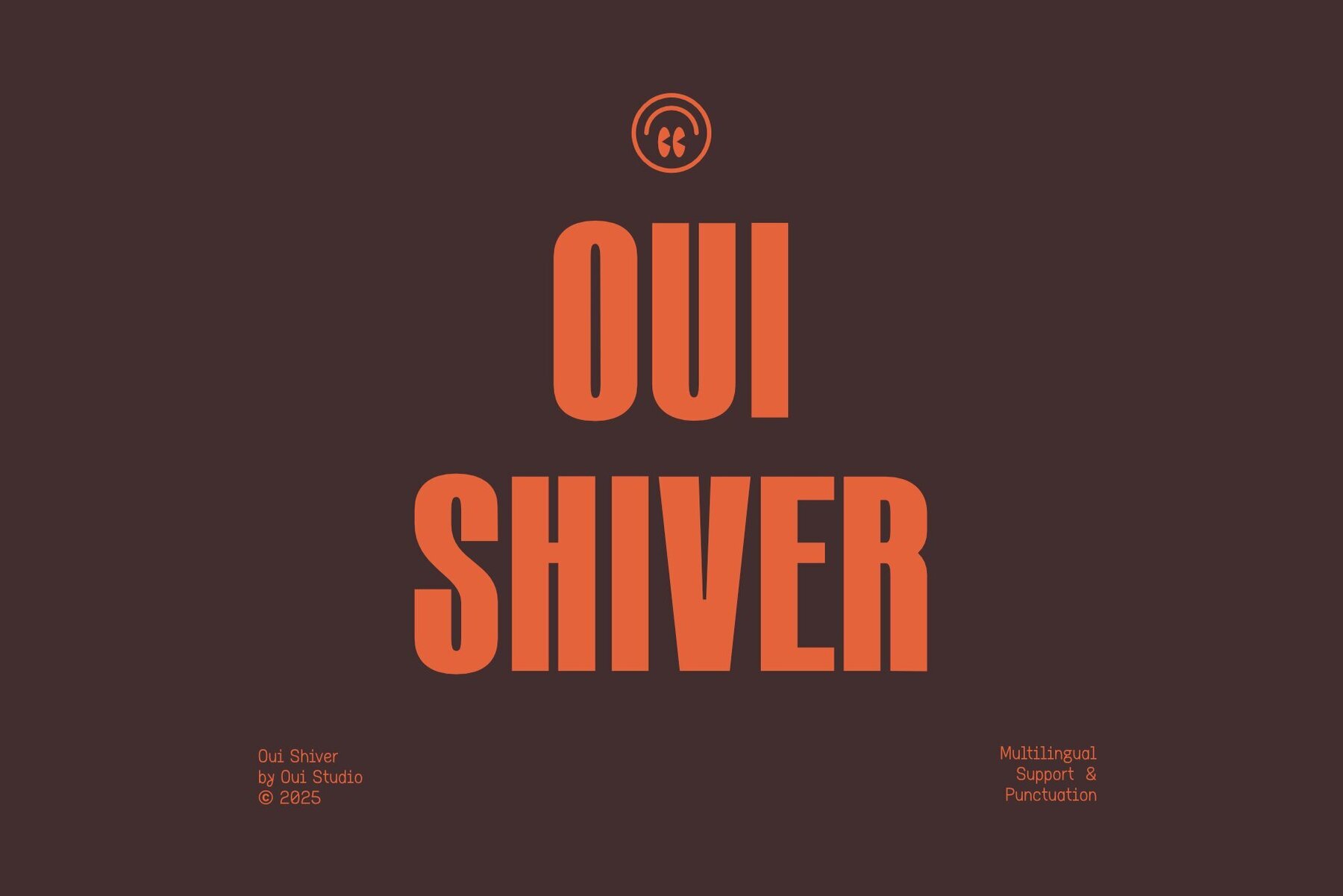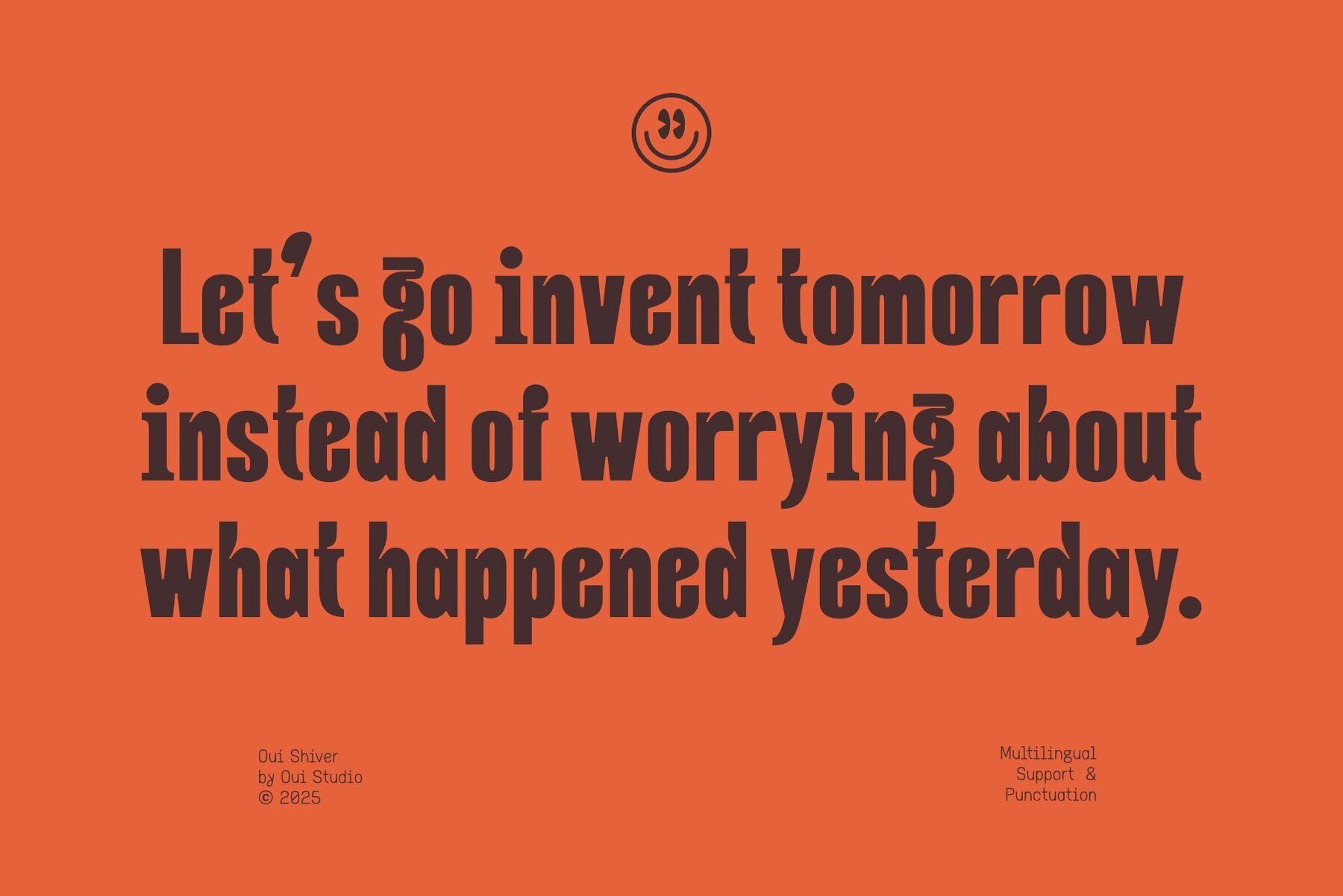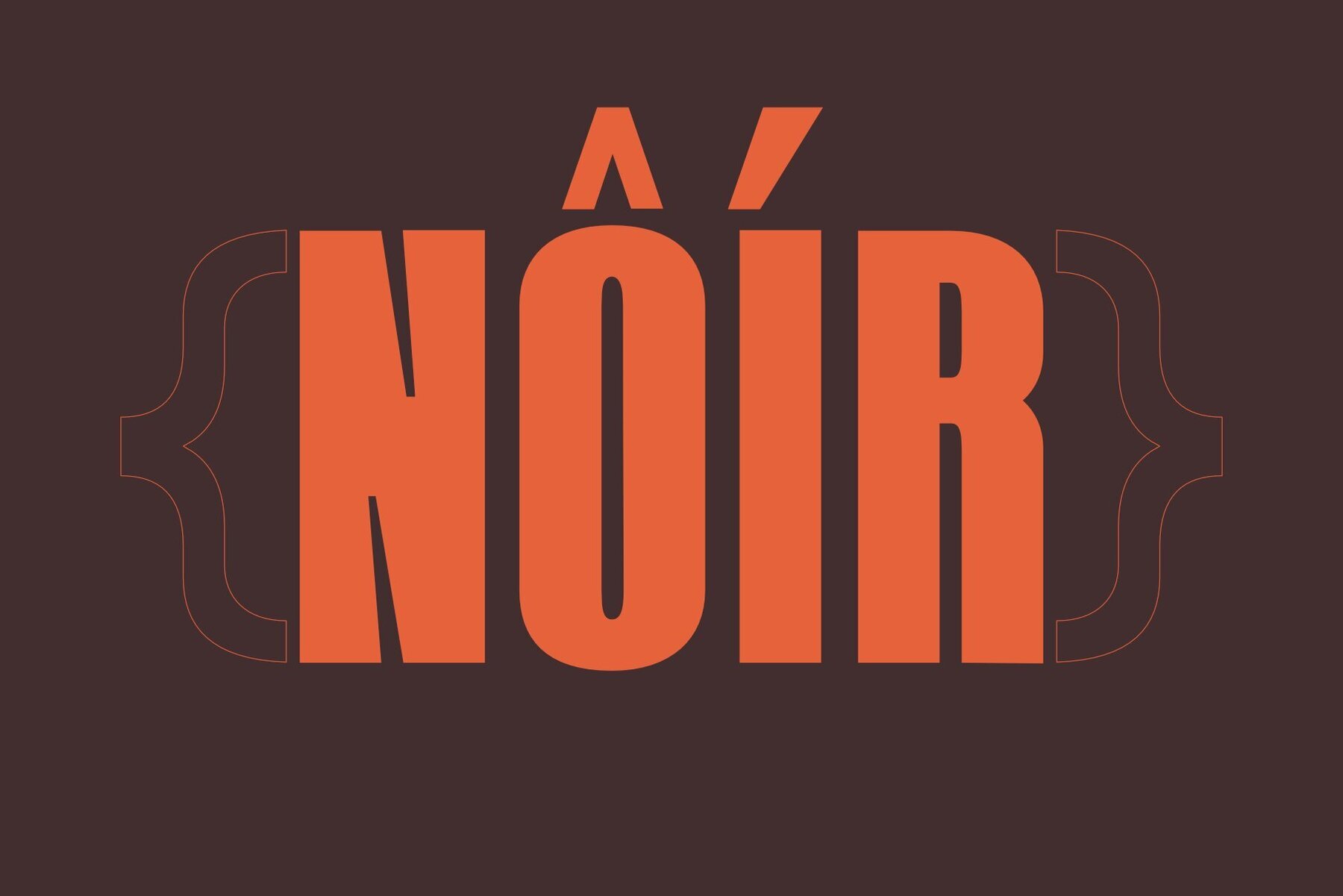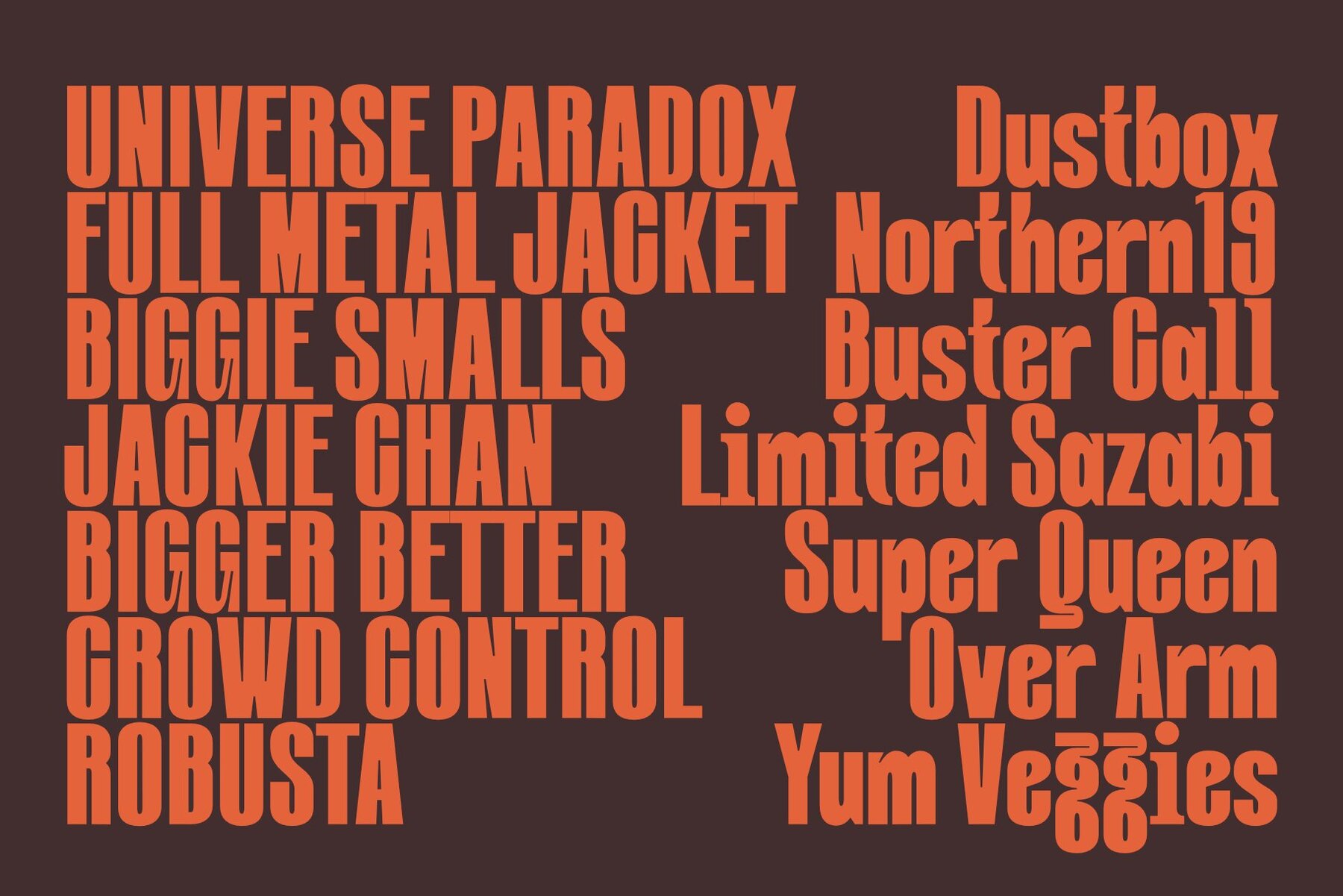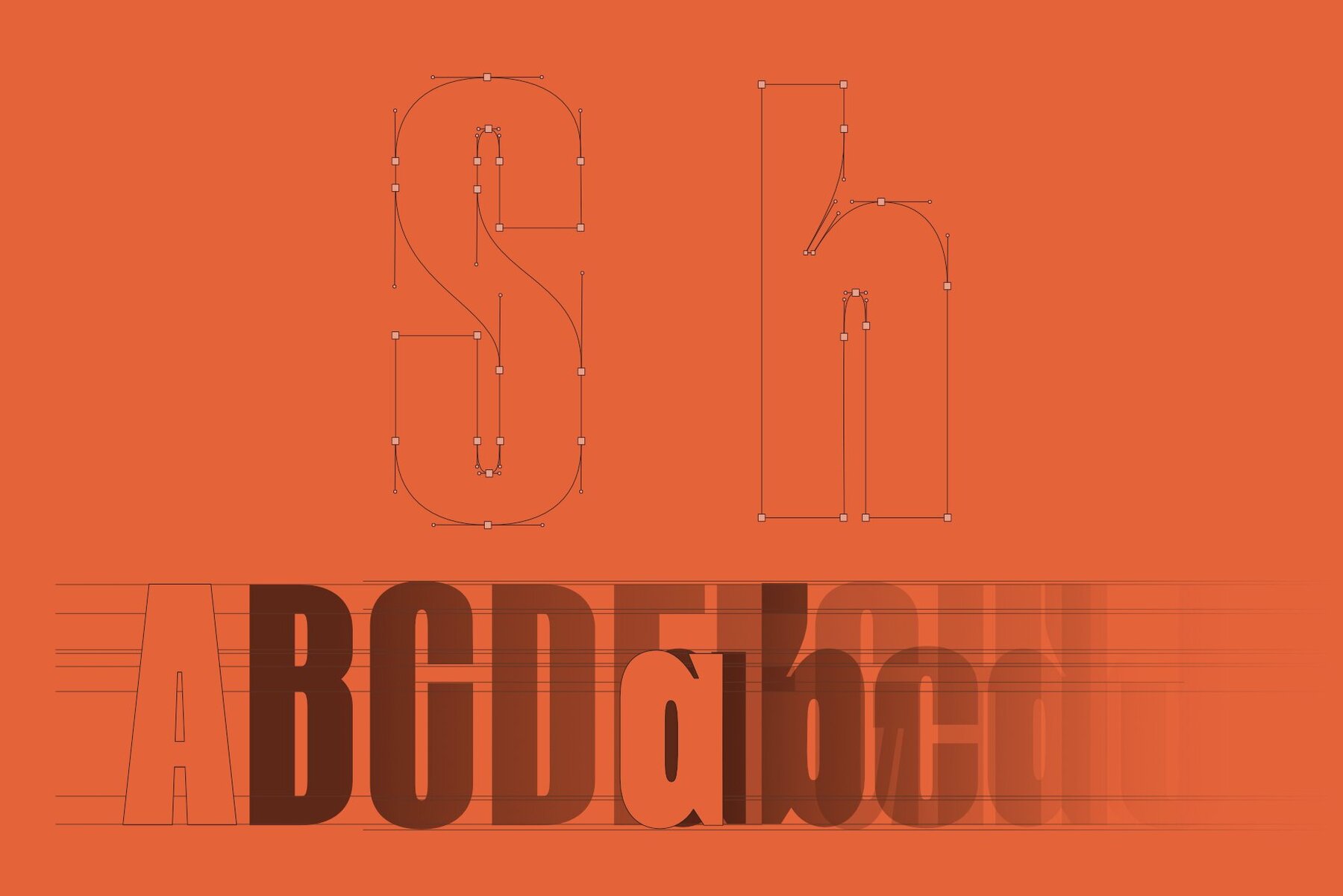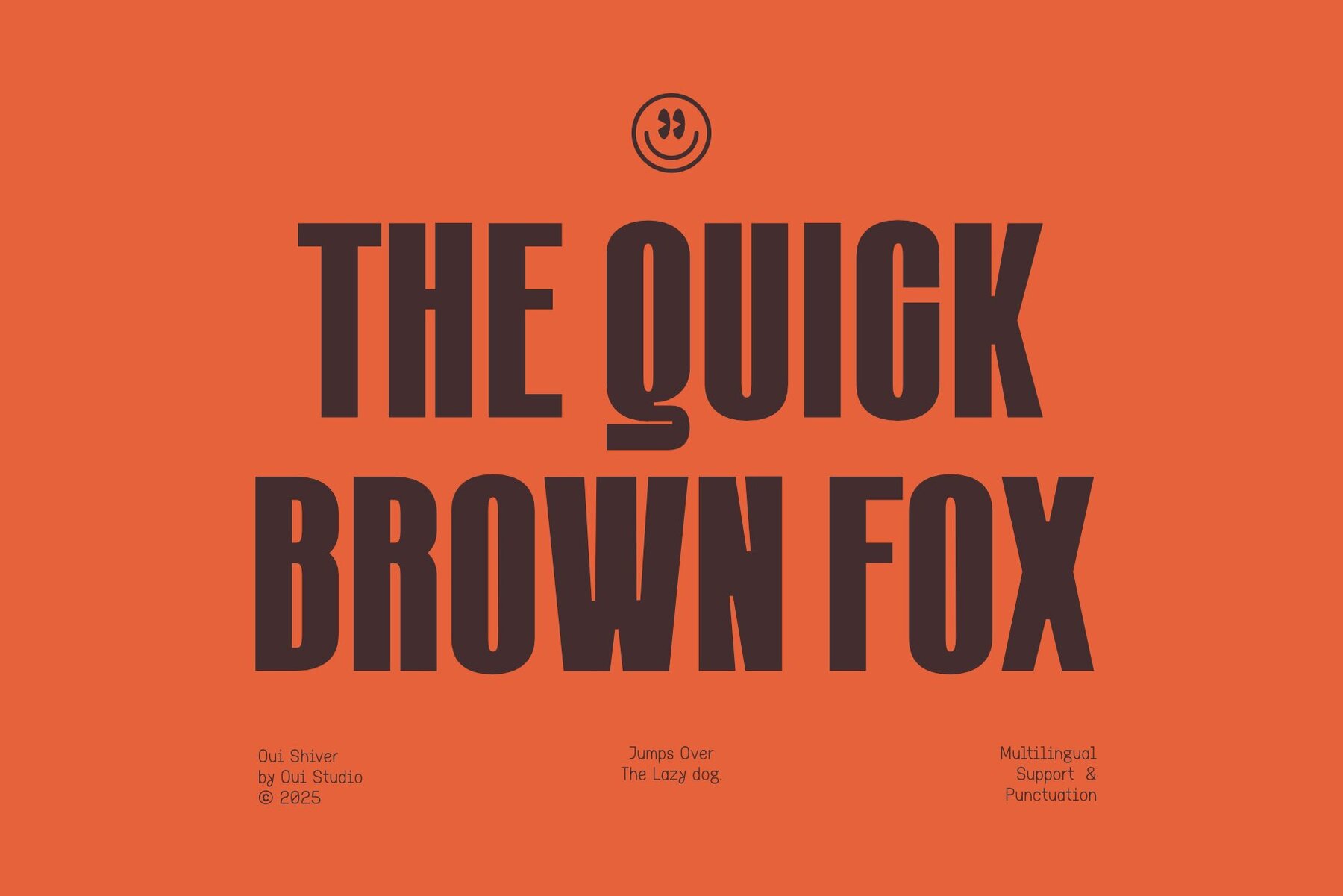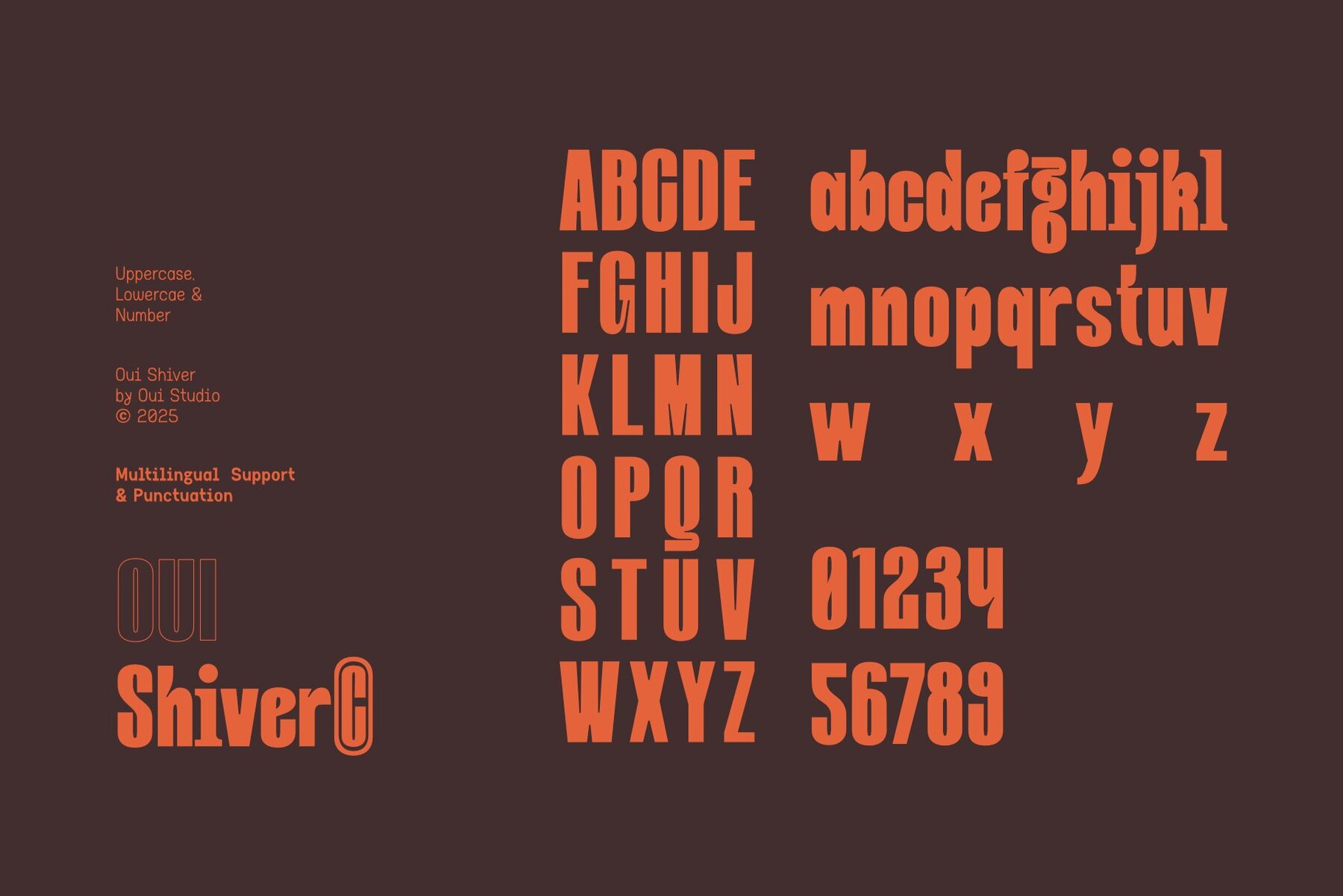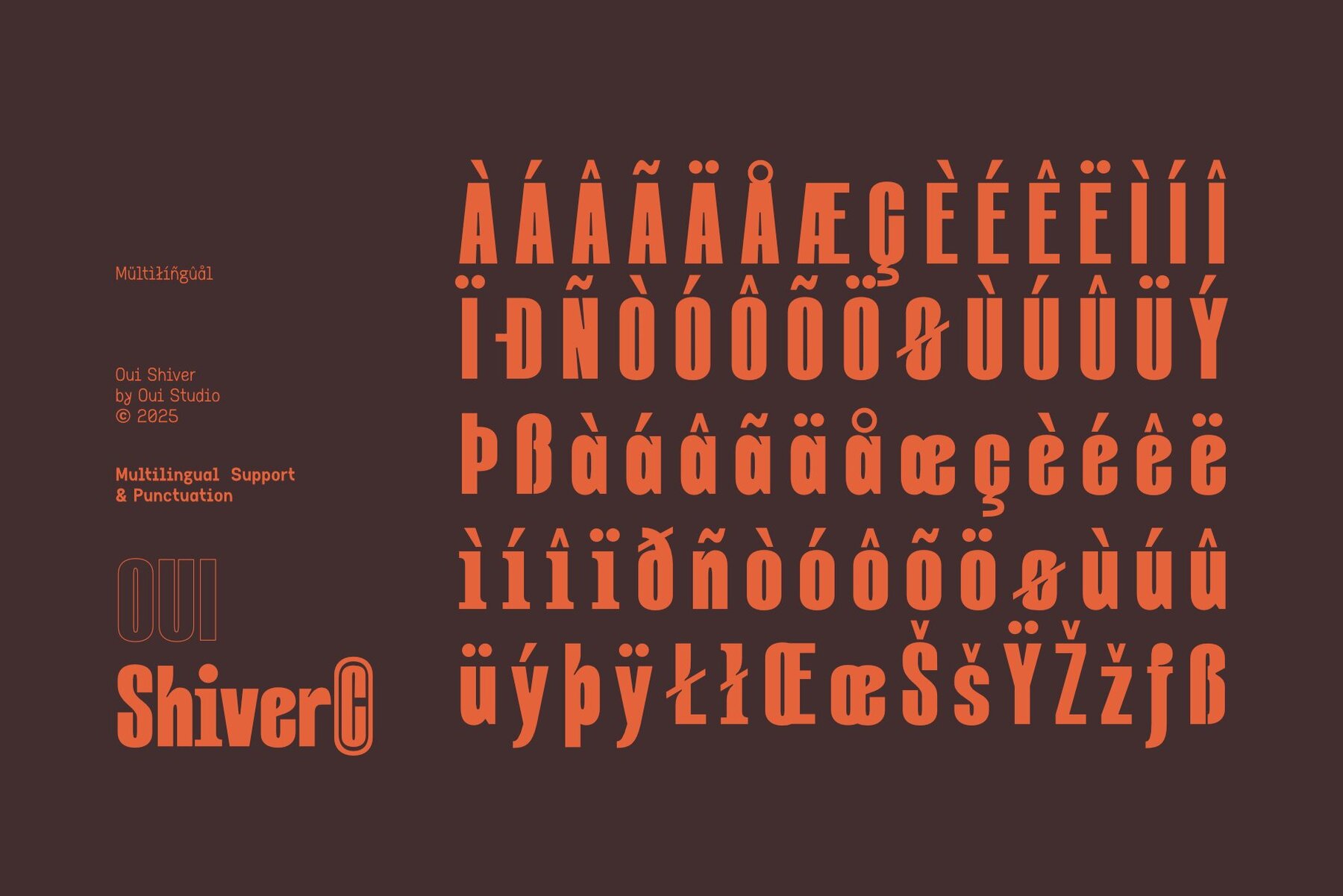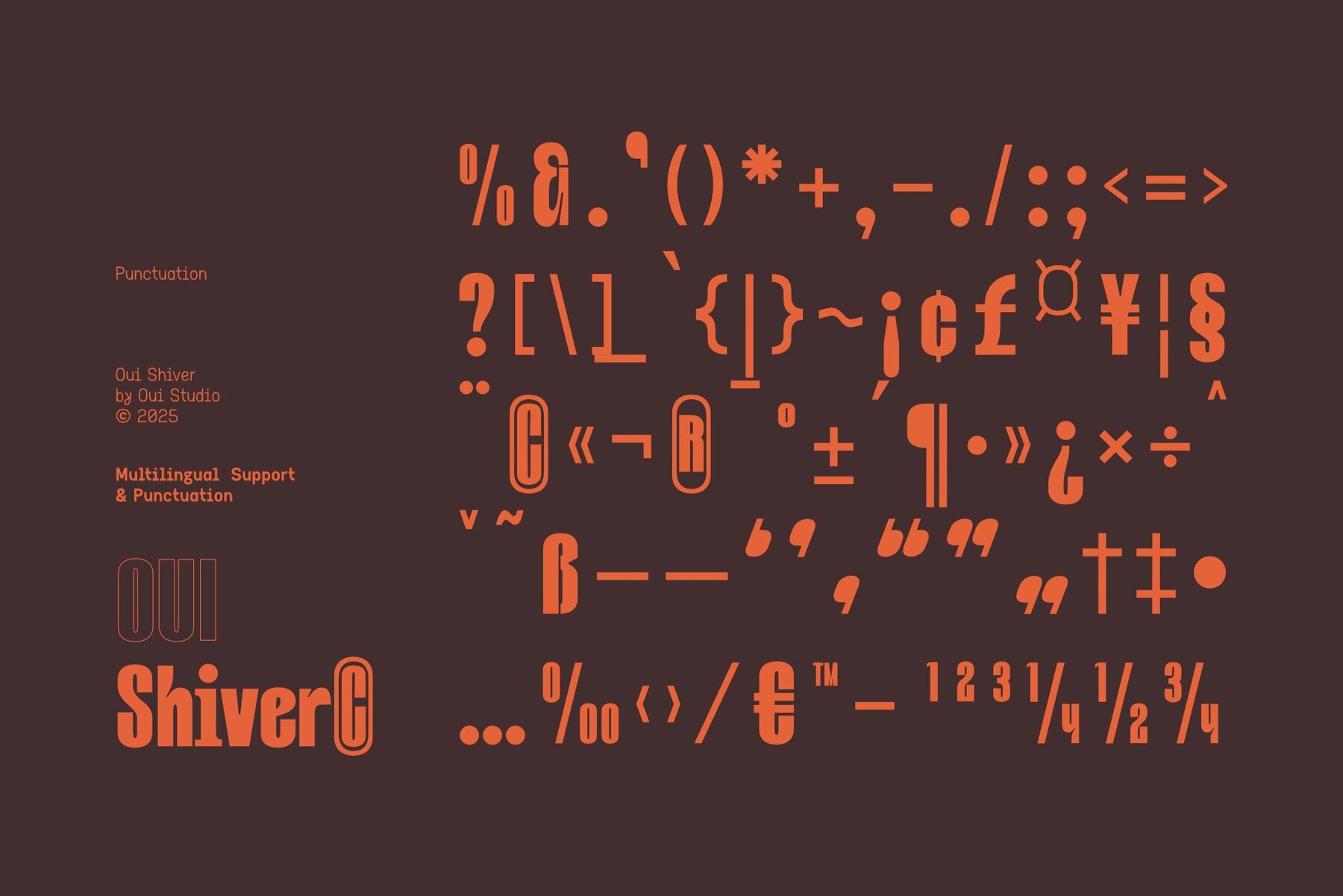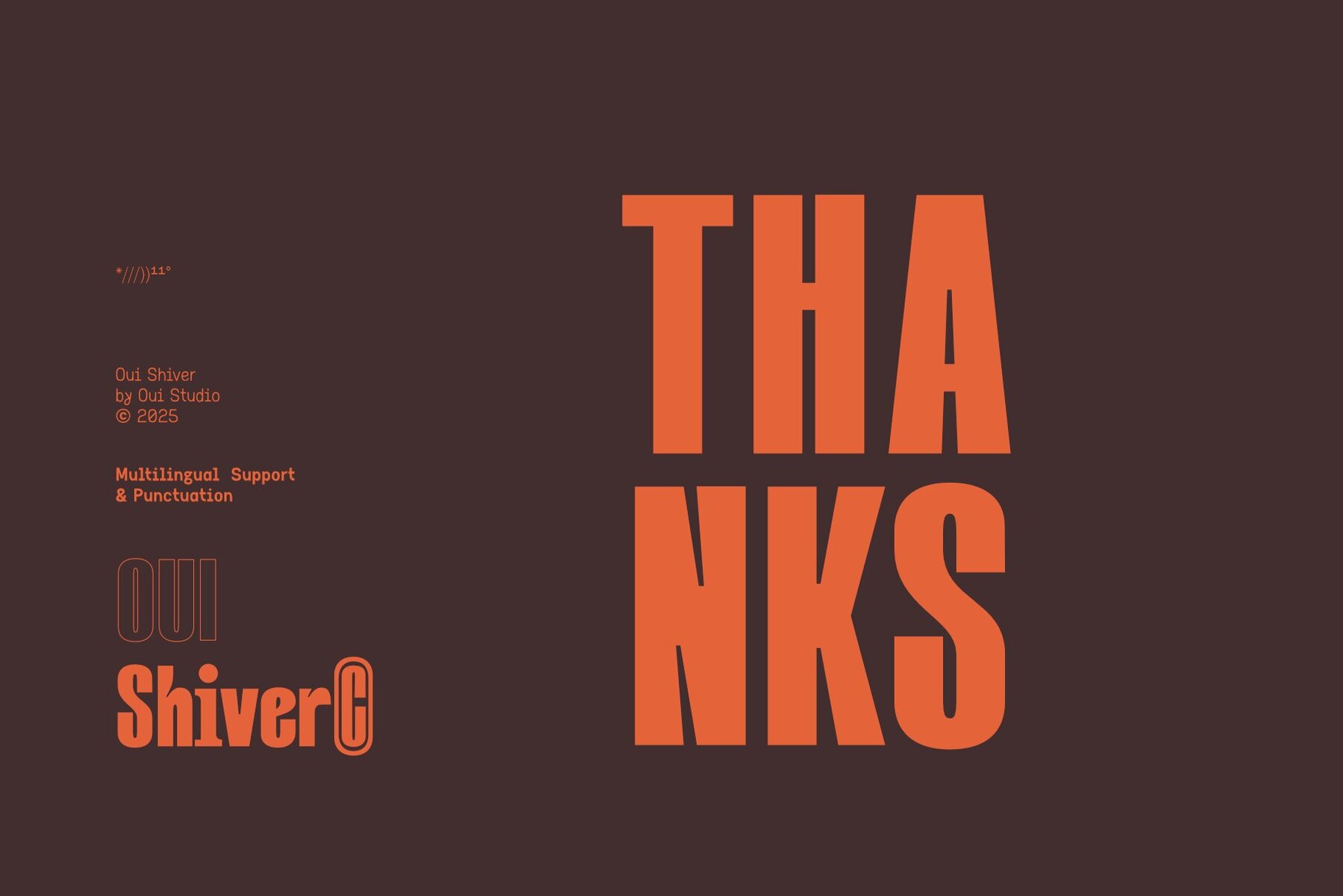
Oui Shiver
Oui Shiver is a bold, expressive display font that combines fierce energy and vintage groove in one compelling form. With its tall, condensed letter shapes, it merges the sharpness of retro poster typography with the smooth confidence of contemporary design. Each character feels deliberate, offering a unique rhythm that captures attention. Ideal for designers seeking to create strong, memorable headlines and titles. Perfectly suited for posters, branding, music covers, and editorial layouts, Oui Shiver transforms text into commanding visual art. Its vintage appeal paired with a modern edge makes it adaptable across styles, from indie aesthetics to impactful commercial designs. Whether developing an album identity, a trendy campaign, or bold packaging, Oui Shiver offers unmistakable character and refined confidence with every letter.Oui Shiver: Vintage Groove Meets Modern Design